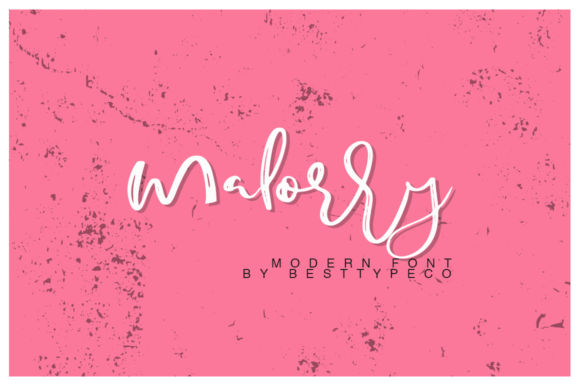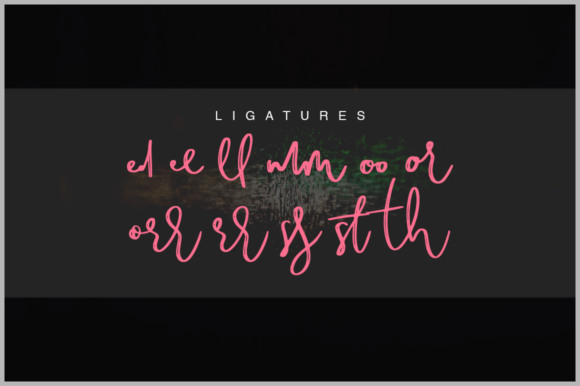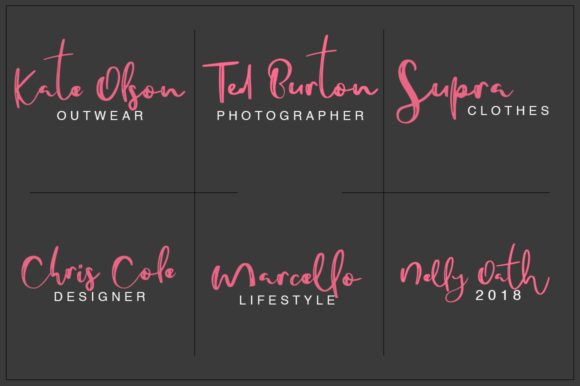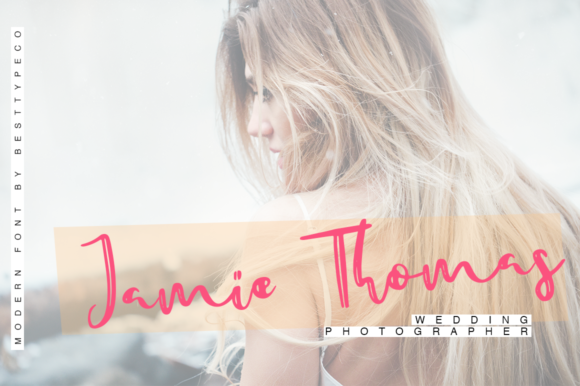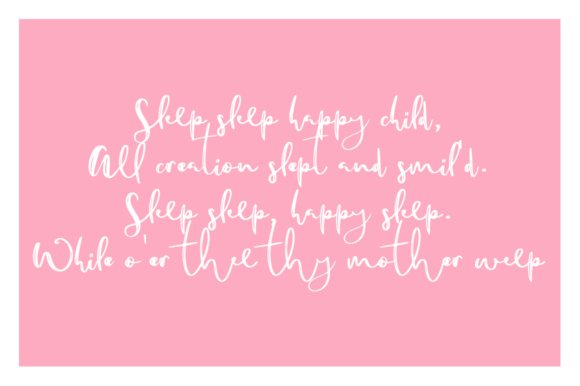
HomeScript FontsThe Malorry Font Script Fonts The Malorry Font FacebookXPinterestWhatsApp The Malorry Font Poster 2 The Malorry Font Poster 3 The Malorry Font Poster 4 The Malorry Font Poster 5 About The Malorry Font The Malorry is a fun and fresh script with incredibly authentic lettering. DOWNLOAD ON CREATIVE FABRICAThis font is sold and delivered by Creative Fabrica. Font Canyon may earn a commission if you buy through this link. People also explored Pink Flamingo Cutie Danila Font Brush Hours Font Shabrina Font Dear Better Font Moula Font Delay Font Deltory Font The Rengol Font 492 0 TagsThe Malorry Font Previous articleBlitz FontNext articleBaby Elysa Font LEAVE A REPLY Cancel reply Comment: Please enter your comment! Name:* Please enter your name here Email:* You have entered an incorrect email address! Please enter your email address here Website: Save my name, email, and website in this browser for the next time I comment. Personal Use Free The Fourth Avenue Personal Use Free Read more about this font Sheiloria Personal Use Free Read more about this font Rhetorical Personal Use Free Read more about this font Bajt Rounded Personal Use Free Read more about this font BLOG Where to Buy American Fonts Online in 2024 Where to Buy American Fonts Online: The Ultimate Guide for 2024 Looking for the perfect American font to elevate your design projects? You're in the... Best Fonts for T-Shirt Design – Top 2025 Picks Elegant Wedding Invitation Fonts – Handwritten & Script Fonts Transform Your Website: Elevate Your Typography with 7 Best Web Font Generators